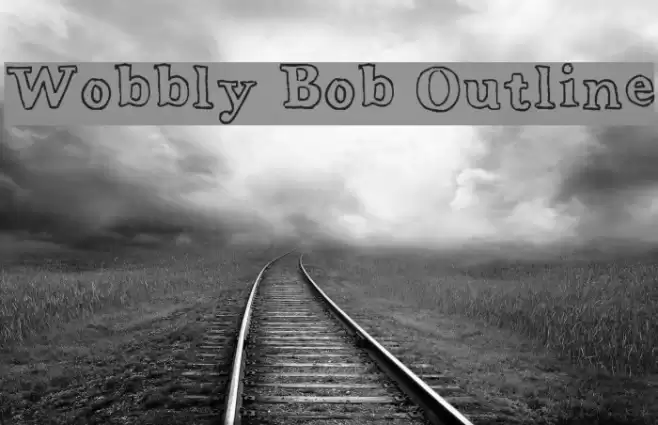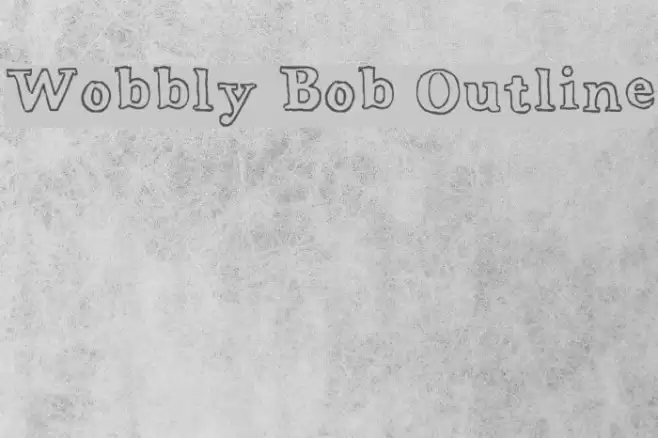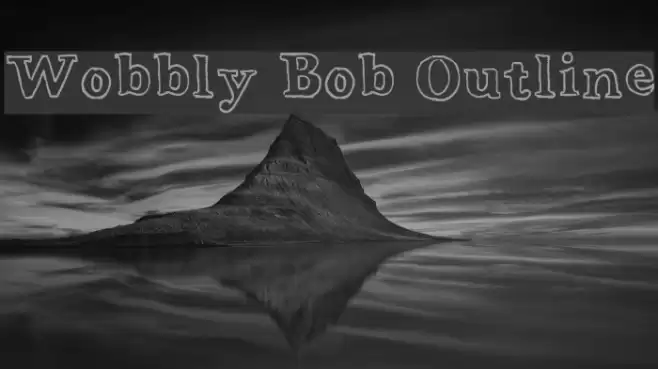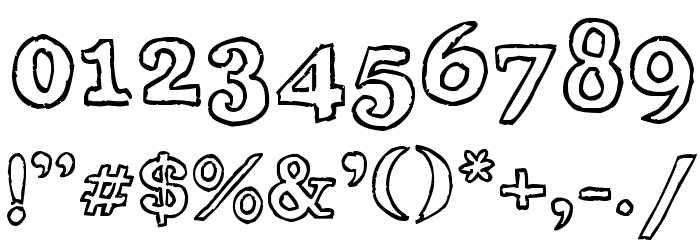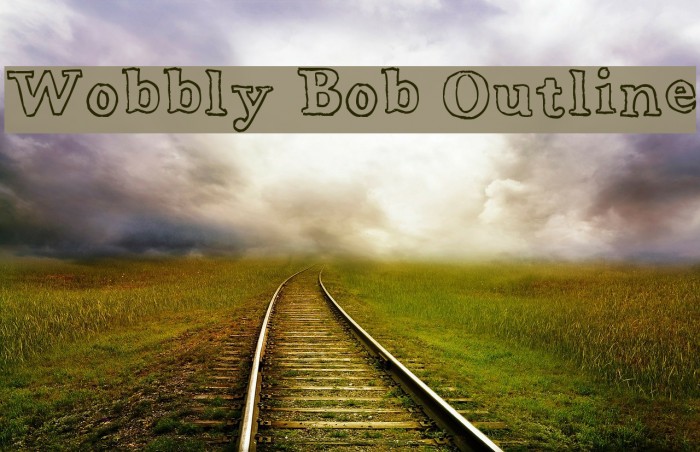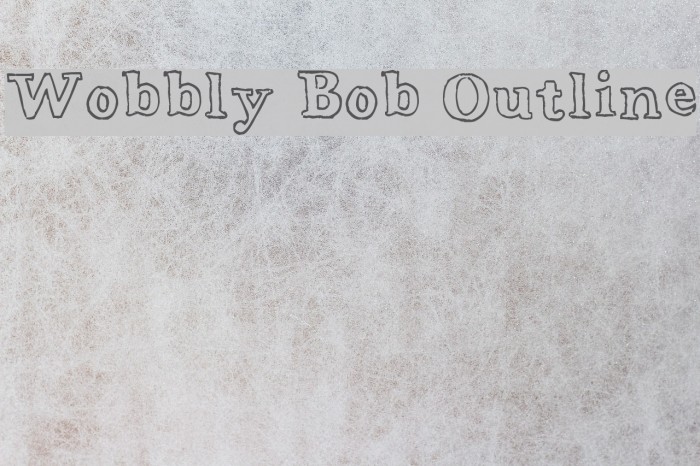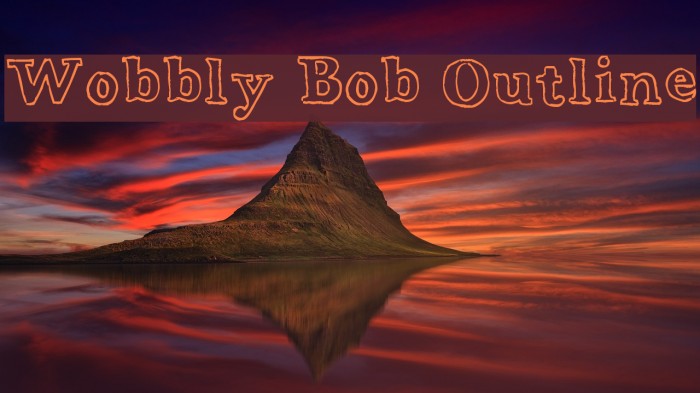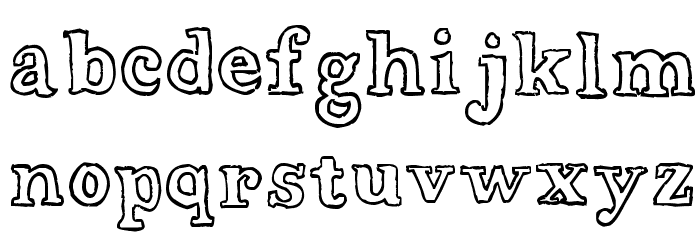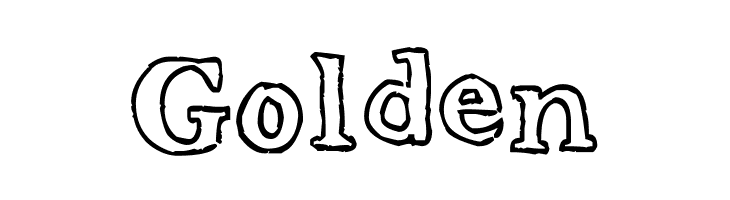
Wobbly Bob Outline Font
Wobbly Bob Outline Description
This font features a playful and whimsical outline style, characterized by its uneven and wobbly lines that give it a hand-drawn appearance. The uppercase and lowercase letters maintain a consistent height, while the numbers and special characters follow the same quirky design. The font's outline nature adds a layer of depth, making it stand out in any design. Its unique style is perfect for projects that require a touch of fun and creativity, such as children's books, playful branding, or artistic posters. The uneven strokes and outlines create a sense of movement and energy, making it ideal for eye-catching headlines or logos.
A playful, hand-drawn outline font with wobbly, uneven lines from Uncategorized fonts.
- Proposed Projects: Children's books, playful branding, artistic posters, eye-catching headlines, logos.
- Overall Style: Whimsical, Playful